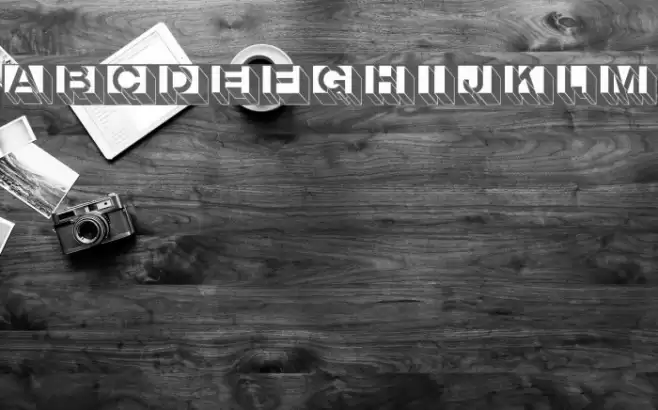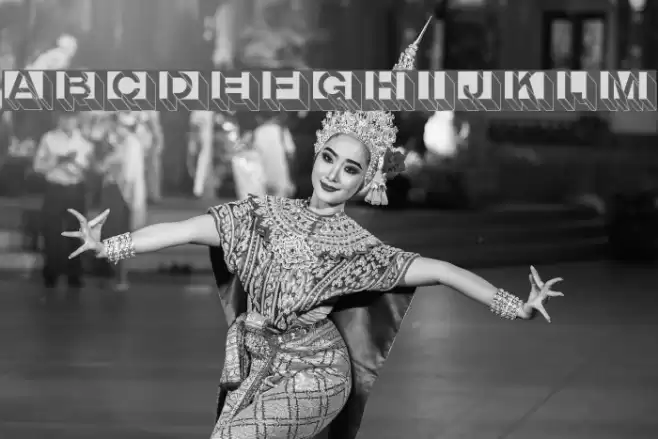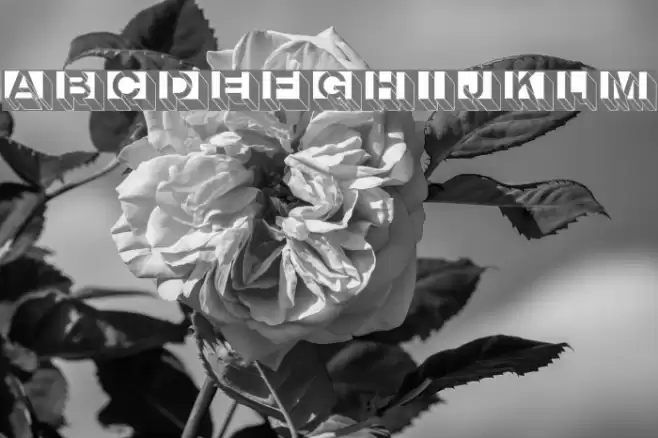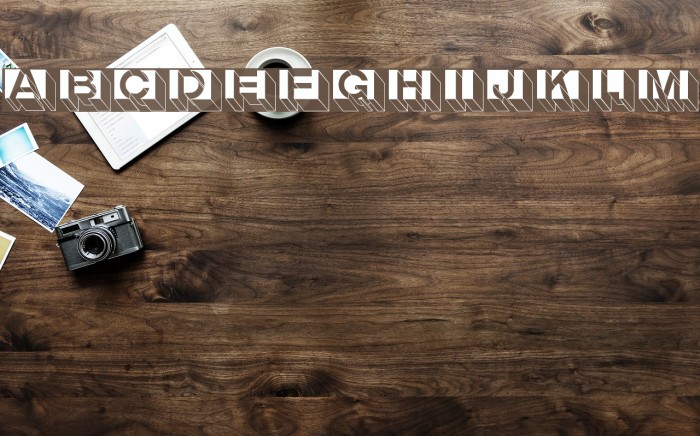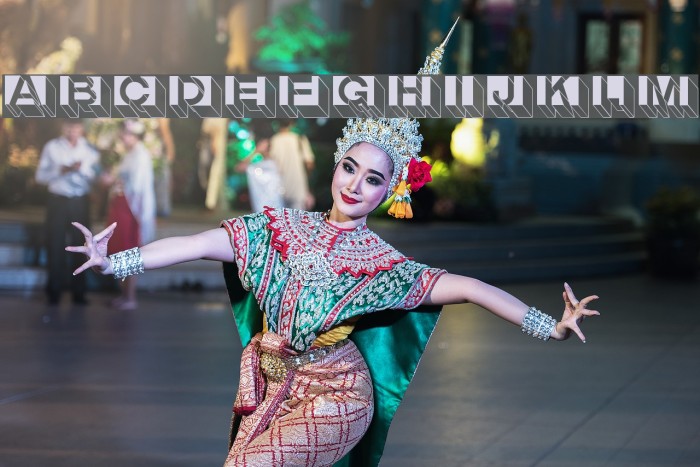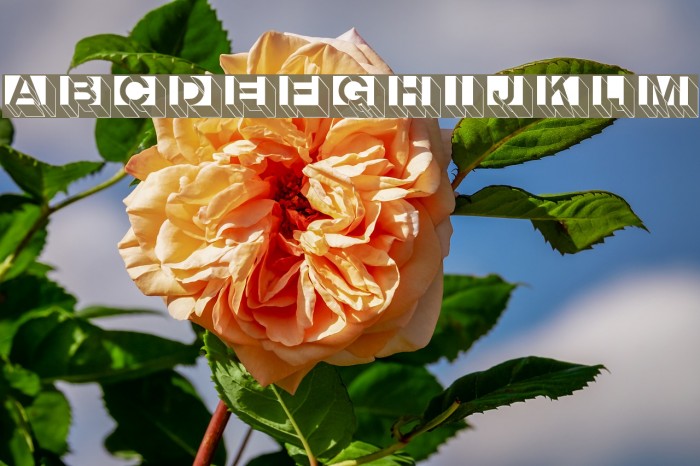
LetterBuildings Font
LetterBuildings Description
This font features a bold and striking 3D effect, where each letter appears as a solid block with a shadow, creating a sense of depth and dimension. The uppercase letters are designed with a strong architectural influence, resembling modernist buildings. The geometric shapes are clean and precise, with sharp angles and straight lines that give a sense of stability and strength. The font's unique style makes it stand out, perfect for projects that require a bold statement. The shadow effect adds a dynamic quality, enhancing the visual impact.
A bold, 3D architectural font with a strong, modernist style from Uncategorized fonts.
- Proposed Projects: Ideal for architectural branding, posters, headlines, and any design needing a bold, impactful look.